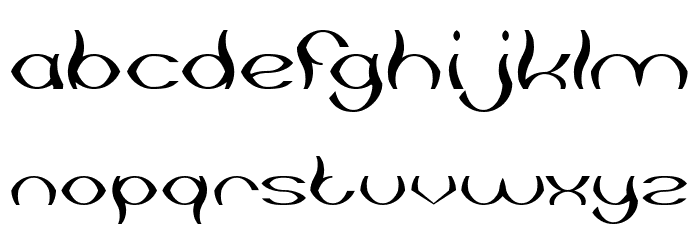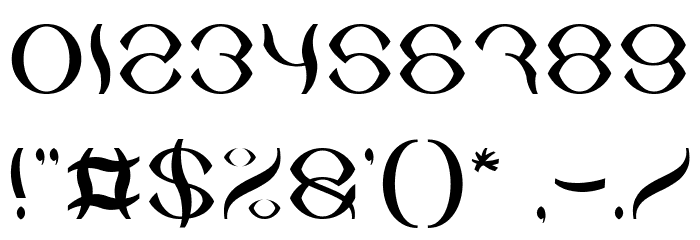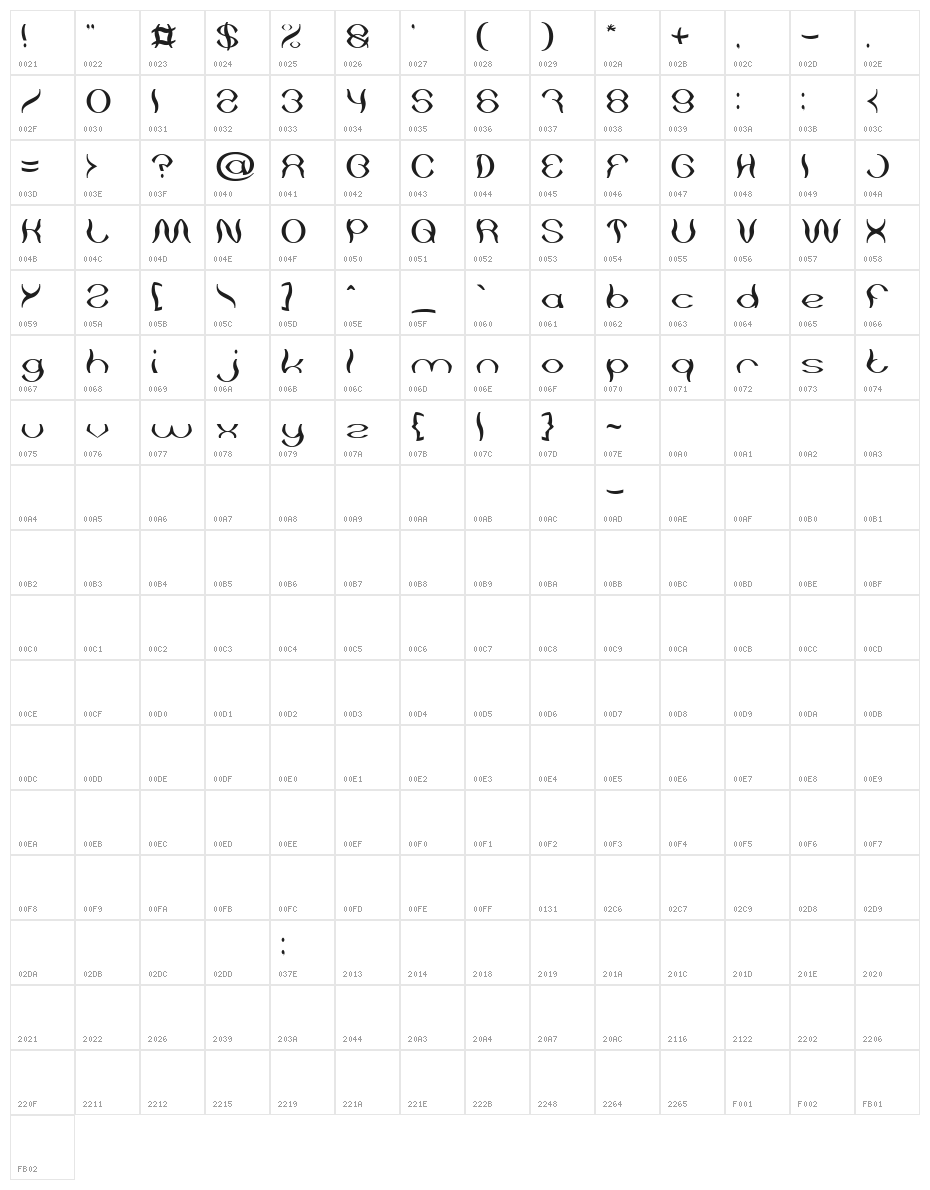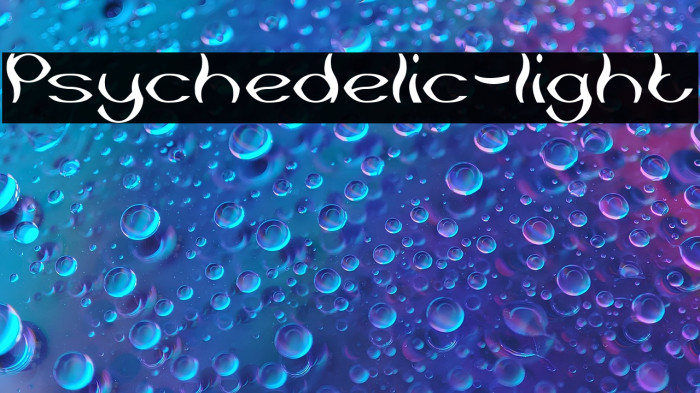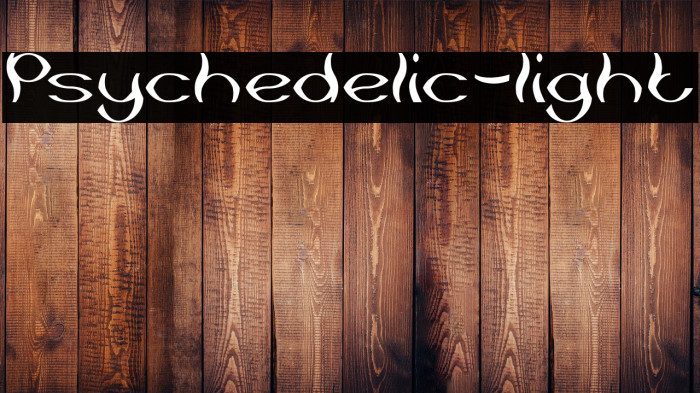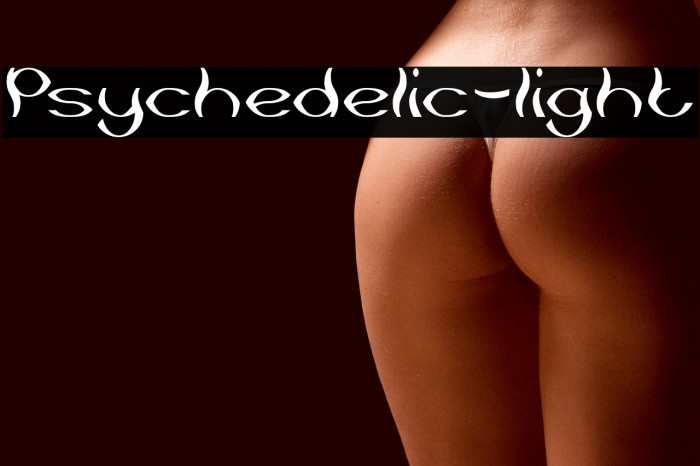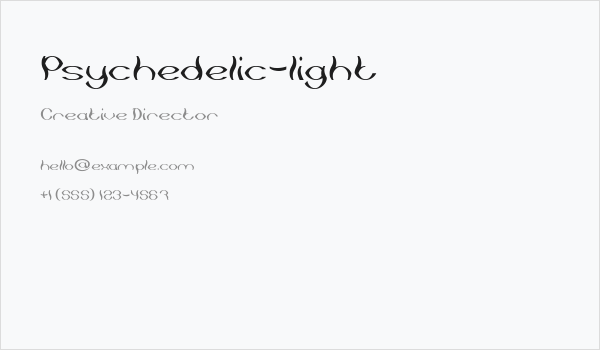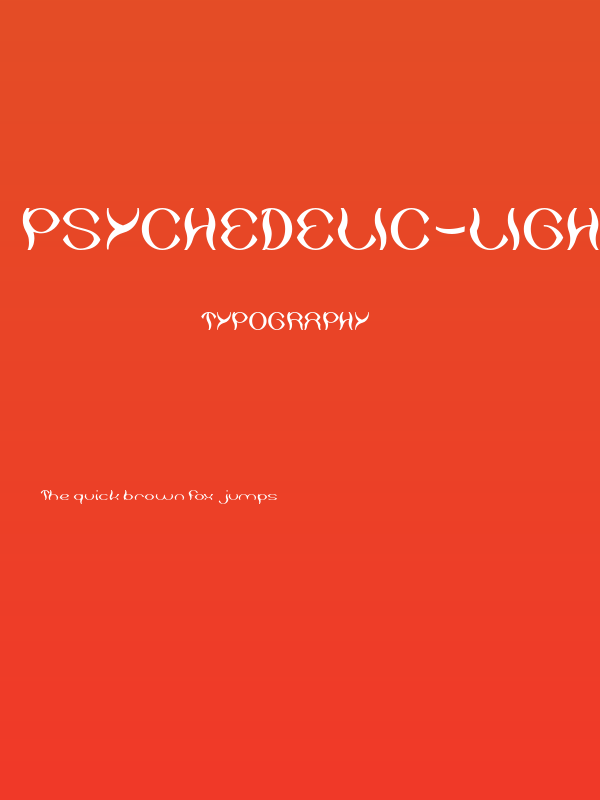
Psychedelic-light Font
This font features a unique and artistic design with a psychedelic flair. The characters exhibit a flowing, organic form with curved lines and pointed edges, creating a sense of movement and rhythm. The uppercase and lowercase letters maintain a consistent style, with each character displaying a distinct personality. The numbers and special characters follow the same aesthetic, ensuring a cohesive look across all glyphs. This font's design is reminiscent of the 1960s and 1970s psychedelic art, making it ideal for projects that aim to capture a retro or artistic vibe. The overall appearance is bold and eye-catching, with a medium contrast in stroke thickness that enhances its visual appeal.
A psychedelic, artistic font with flowing, organic forms and medium contrast.
- Proposed Projects: Ideal for album covers, posters, branding for creative industries, and retro-themed designs.
- Overall Style: Psychedelic, Retro, Artistic
- Use Case: Headlines, Posters, Branding